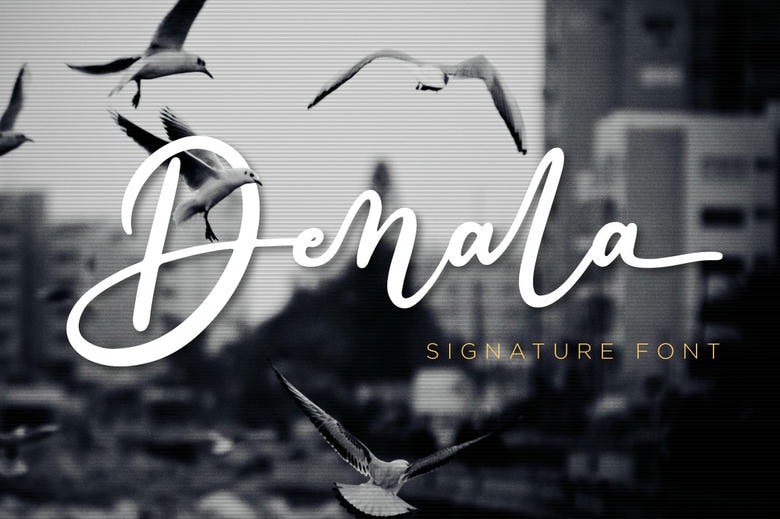
Denala Font
Denala is a beautiful and refined script font. It has a classy, elegant and modern look that can be used for logos, branding, invitations, stationery, wedding designs, social media posts, and much more!
Denala Handwritten Script Font